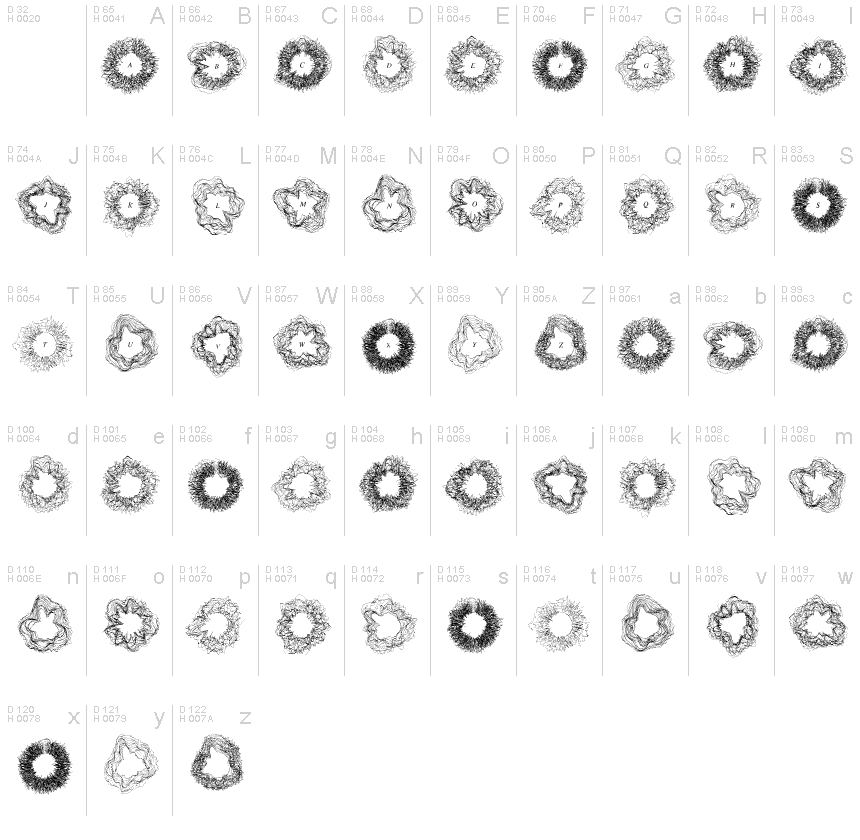
Spectral Sans Regular
Spectral Sans is a light display font designed by Ernest Strauhal. Its decorative style makes it perfect for projects that require an elegant, eye-catching look such as logos, titles and headlines. Its ornamental characters make Spectral Sans an excellent choice for creative designs, from invitations to posters and more. With its unique flair, this font will add a touch of sophistication to your work.
Vocalized letters.
Typing in all caps shows the character inside the audio spectrum and typing in lowercase shows only the audio spectrum of the letter.